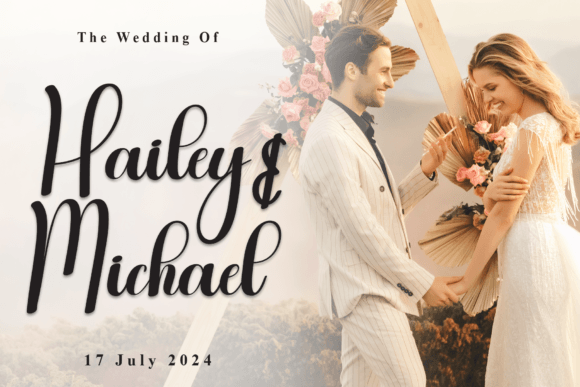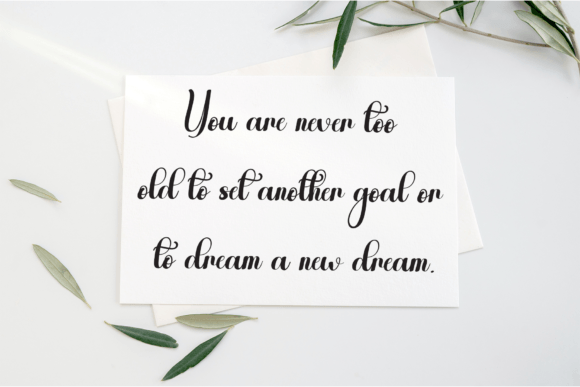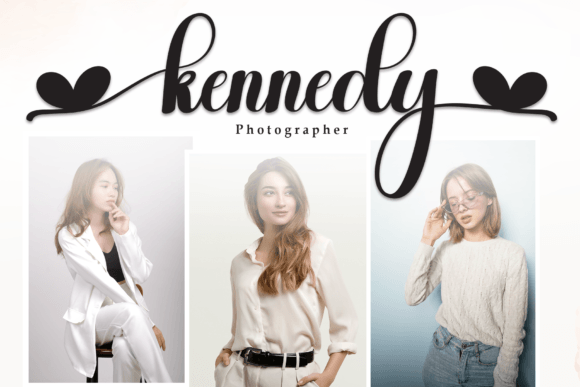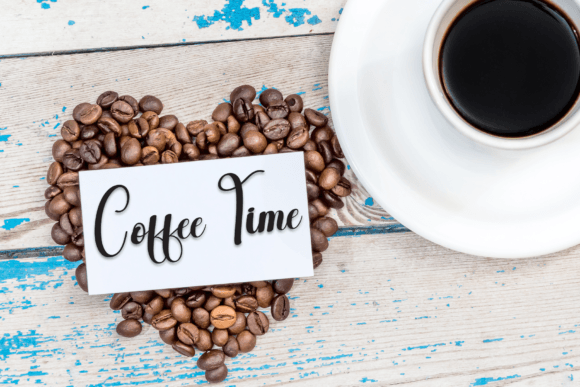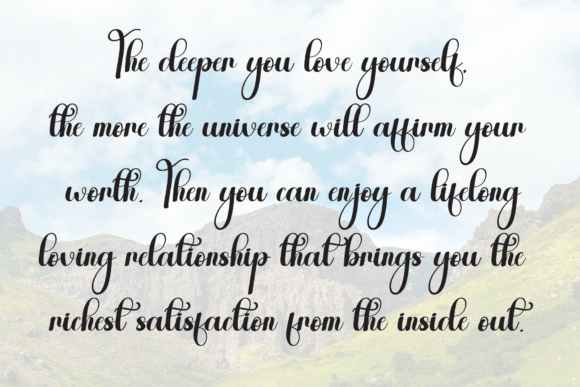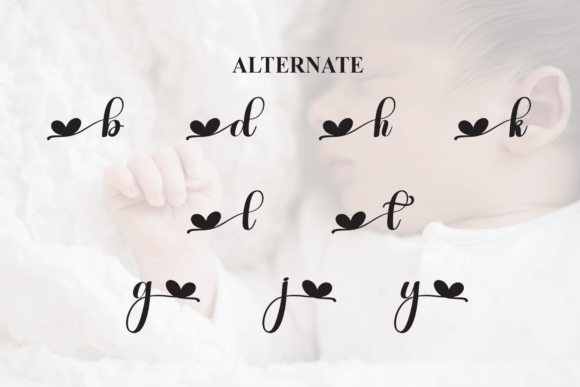
Introducing a Font that Brings Joy to Your Designs
Do you remember the moment when you stumbled upon a font that perfectly captured the essence of your creative vision? For many designers, it’s a feeling that’s hard to put into words, but it’s a rush of excitement and satisfaction that keeps us coming back for more. For me, that moment came when I discovered the delightful Babyday Font.
This charmingly delightful handwritten display font personifies warmth and friendliness, making it the perfect addition to any design project. Whether you’re creating wedding invitations, greeting cards, or any other creative endeavor, the Babyday Font infuses your designs with an irresistibly fun touch. Its quirky, fun aesthetic is sure to make your creations stand out in sweetness and style, making it a valuable asset for designers of all levels.
Babyday Font Key Features
- Unique Characteristics: The font features a playful, hand-drawn design with subtle imperfections, giving it a charming and personal touch.
- Legibility: The font is designed to be highly legible, making it suitable for body text, headings, and titles.
Design Review: Babyday Font
Overall, I think the Babyday Font has some great qualities that make it suitable for certain projects. ✨ One of the things I like is the playful, cursive feel that it gives to text. It’s perfect for adding a touch of whimsy to children’s books, nursery decor, or other designs that target young audiences.
Another strength of the Babyday Font is its versatility. ✨ It comes in multiple weights and styles, making it easy to customize and adapt to different design needs. Whether you need a bold, eye-catching headline or a subtle, elegant body text, Babyday Font has got you covered.
However, there are some limitations to the Babyday Font that designers should be aware of. ⚠️ One of the main issues is its limited legibility at smaller font sizes. While it looks great at larger sizes, it can become difficult to read at smaller sizes, which may limit its use in certain contexts.
Another limitation is the font’s lack of sophistication. ⚠️ While it’s perfect for playful, childlike designs, it may not be suitable for more formal or professional projects.
Overall, I think the Babyday Font is a solid choice for designers who need a playful, cursive font. While it has its limitations, it’s a great option for projects that require a touch of whimsy and fun.
- Playful, cursive feel
- Multiple weights and styles
- Customizable
- Perfect for children’s books, nursery decor, and other designs targeting young audiences
Practical Application Guide for Babyday Font
Tips for Getting the Most Out of Babyday Font
Use Babyday Font for creative projects that require a playful and whimsical touch.
Pair it with bold colors and cute graphics for a cohesive look.
Babyday Font is perfect for:
Children’s party invitations and decorations.
Baby shower invitations and decorations.
Children’s book illustrations and design.
Any project that requires a fun and playful touch.
Alternatives to Babyday Font
Lato is a modern sans-serif font that is highly legible and versatile. It is suitable for both digital and print media, making it a great alternative to Babyday Font. Lato is more geometric and clean compared to Babyday Font, which has a more rounded and playful feel.
Montserrat is a sans-serif font that originated in Argentina. It is known for its strong and urban feel, making it a great choice for modern designs. Compared to Babyday Font, Montserrat is more geometric and has a stronger emphasis on horizontal lines, giving it a more contemporary look.
Open Sans is a popular sans-serif font that is highly legible and versatile. It is a great choice for body text and is widely used in digital media. Compared to Babyday Font, Open Sans is more neutral and clean, making it a great choice for designs where you want to focus on content rather than aesthetics.